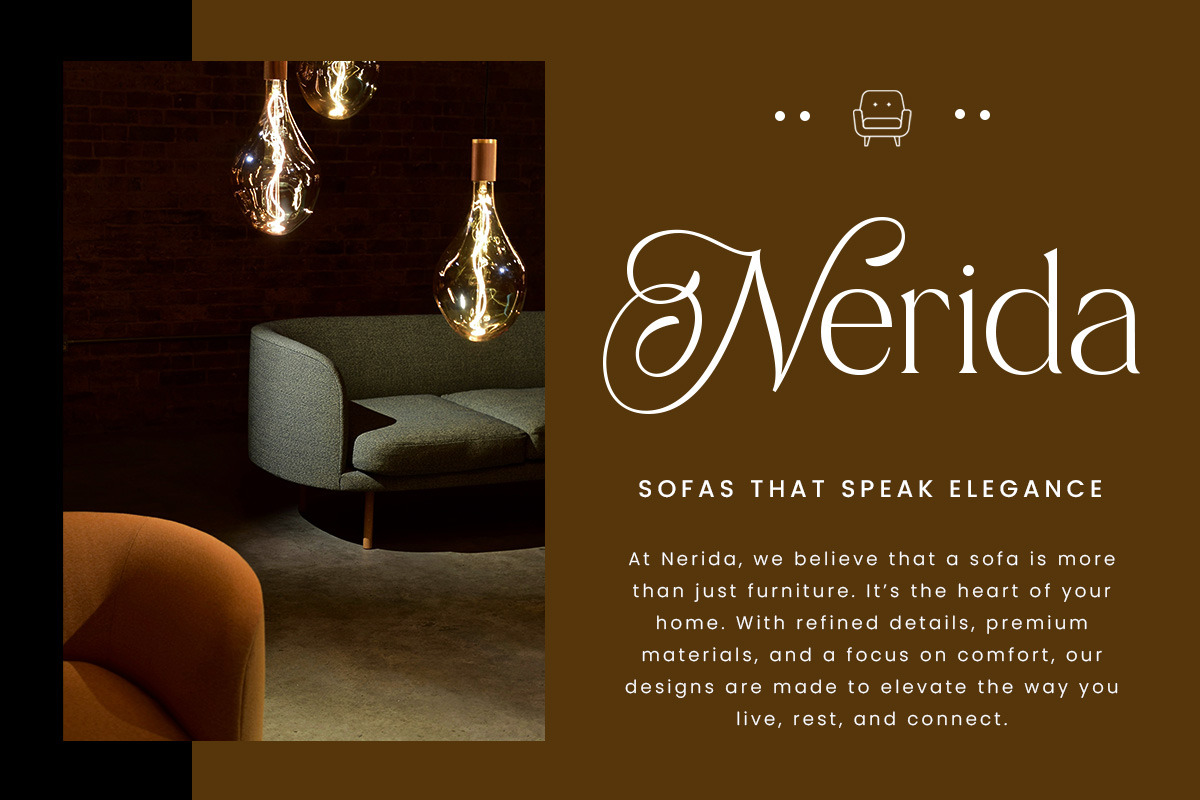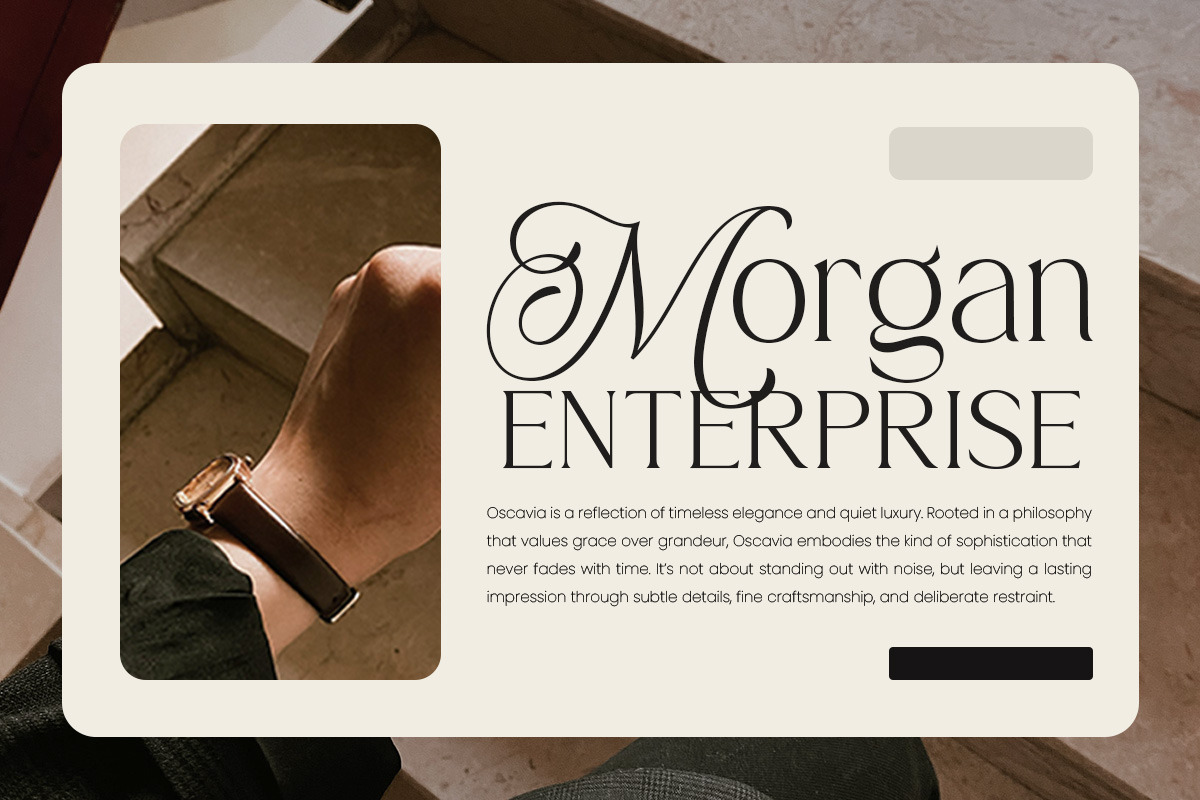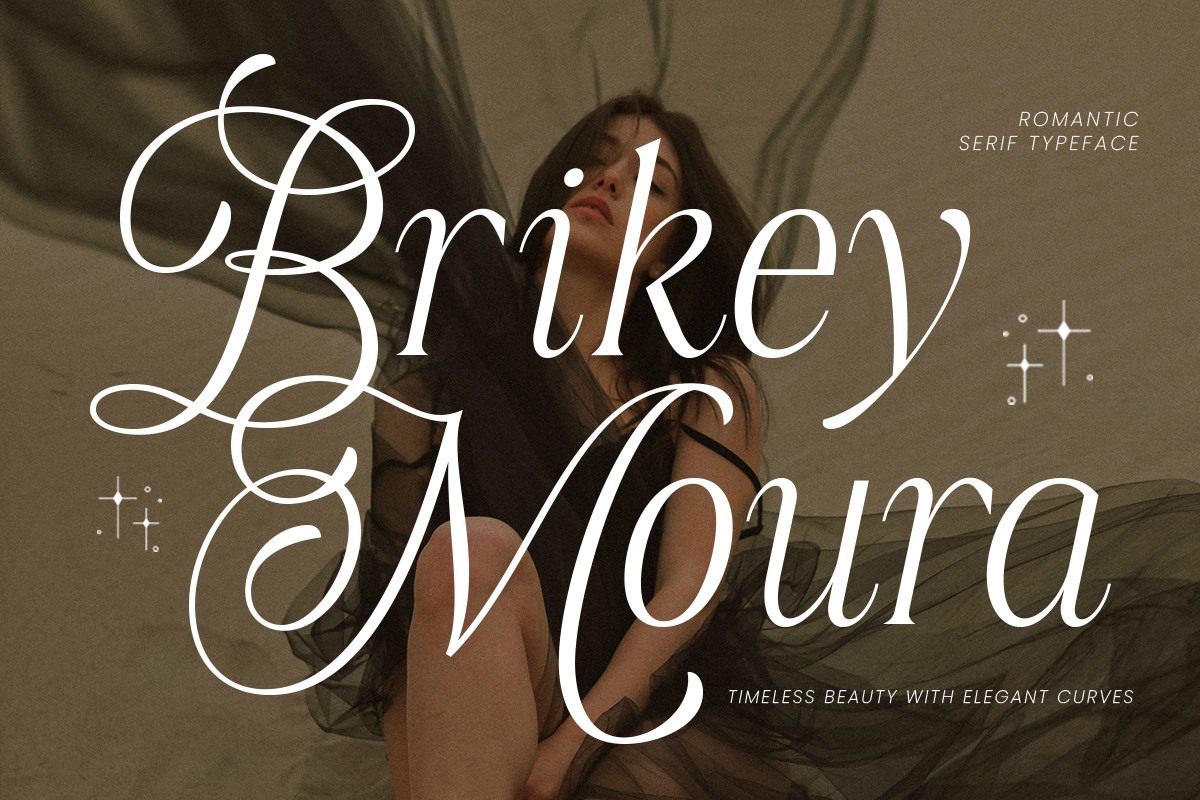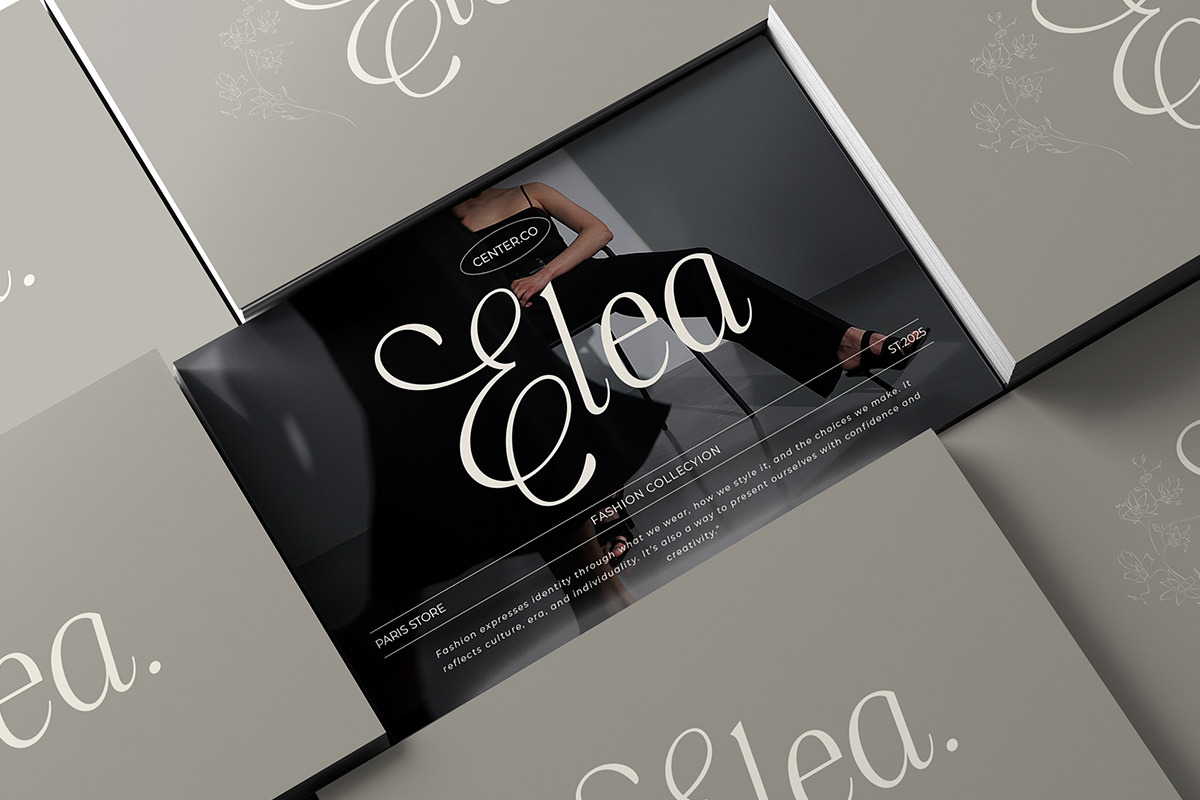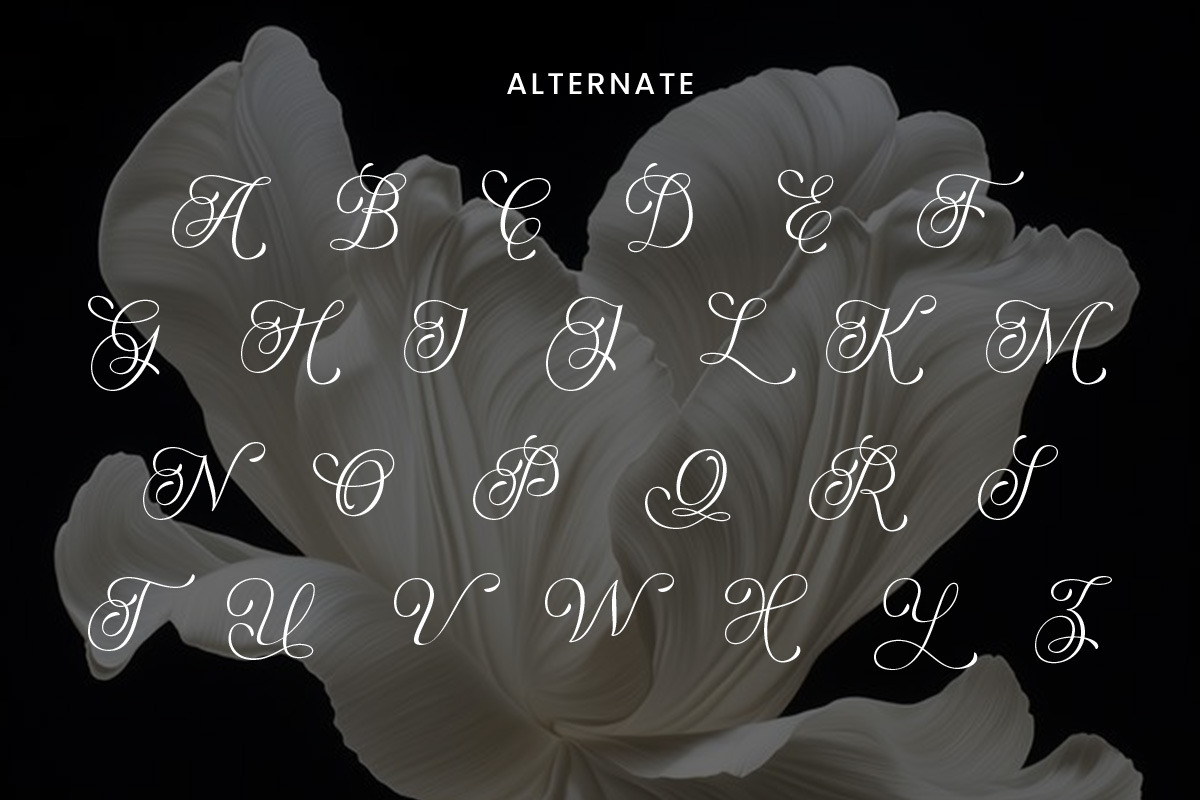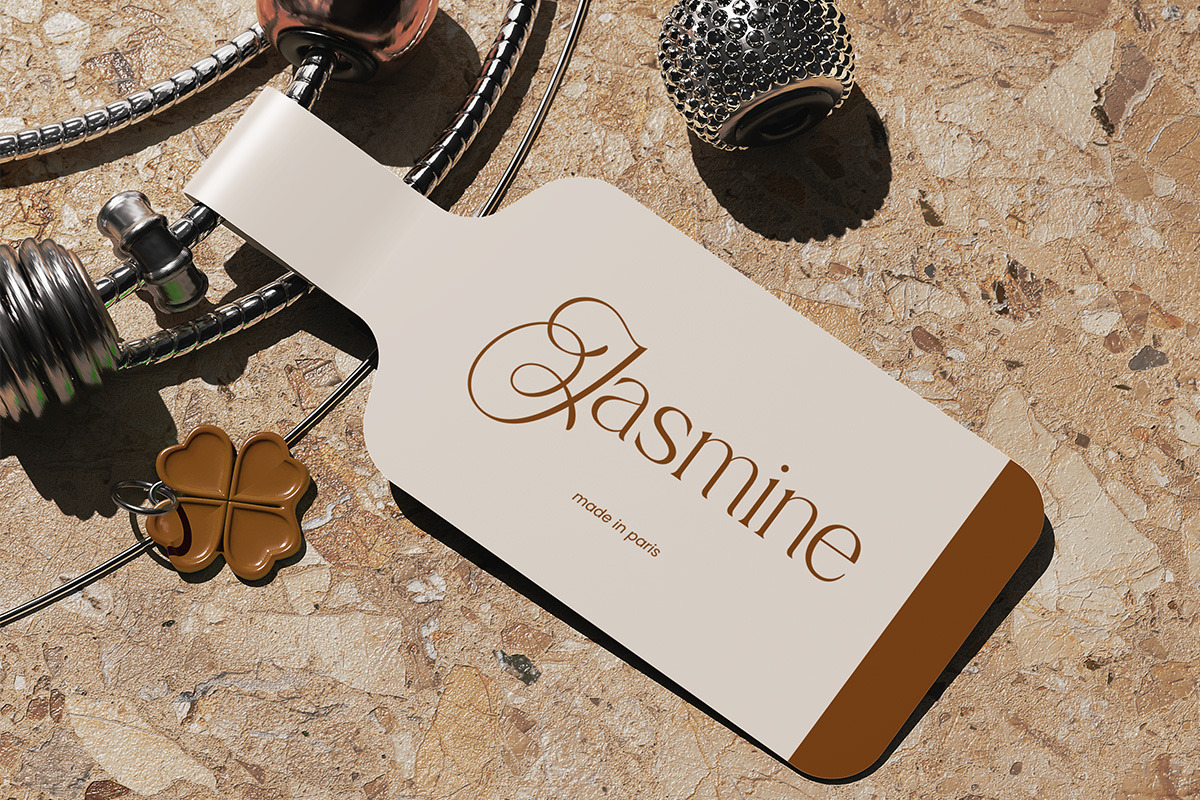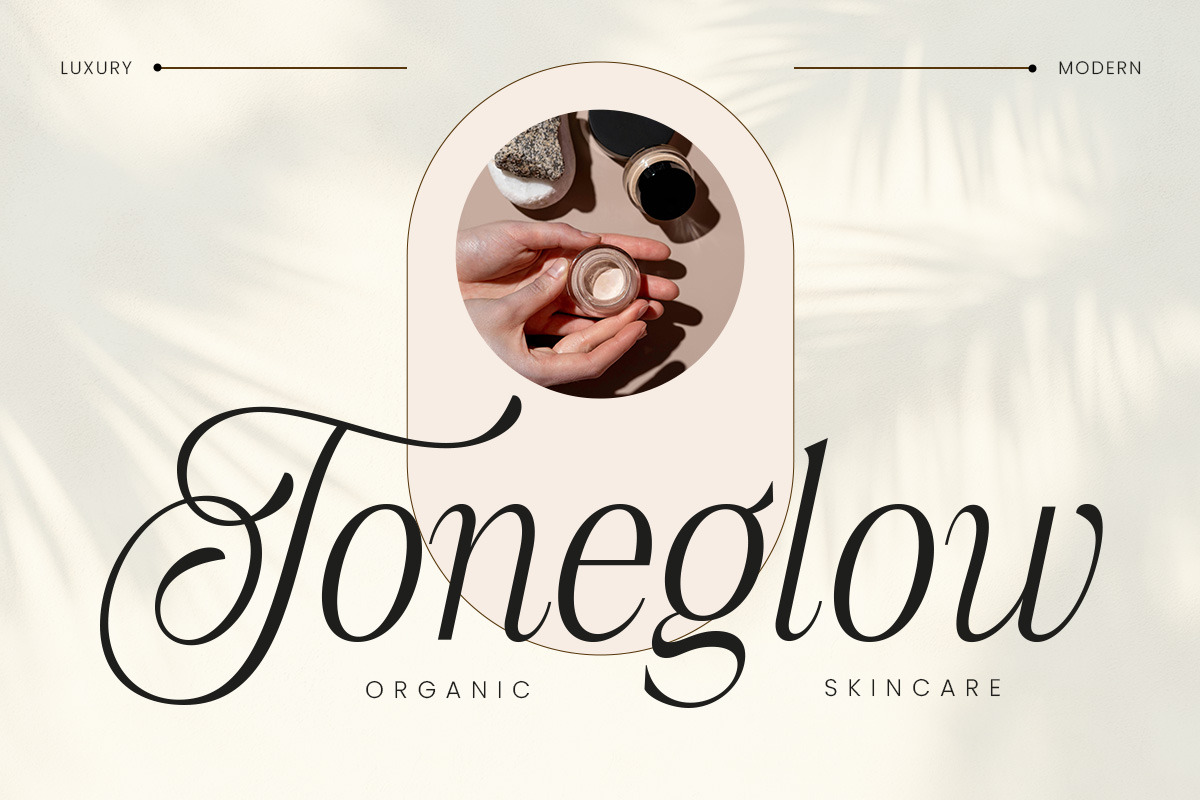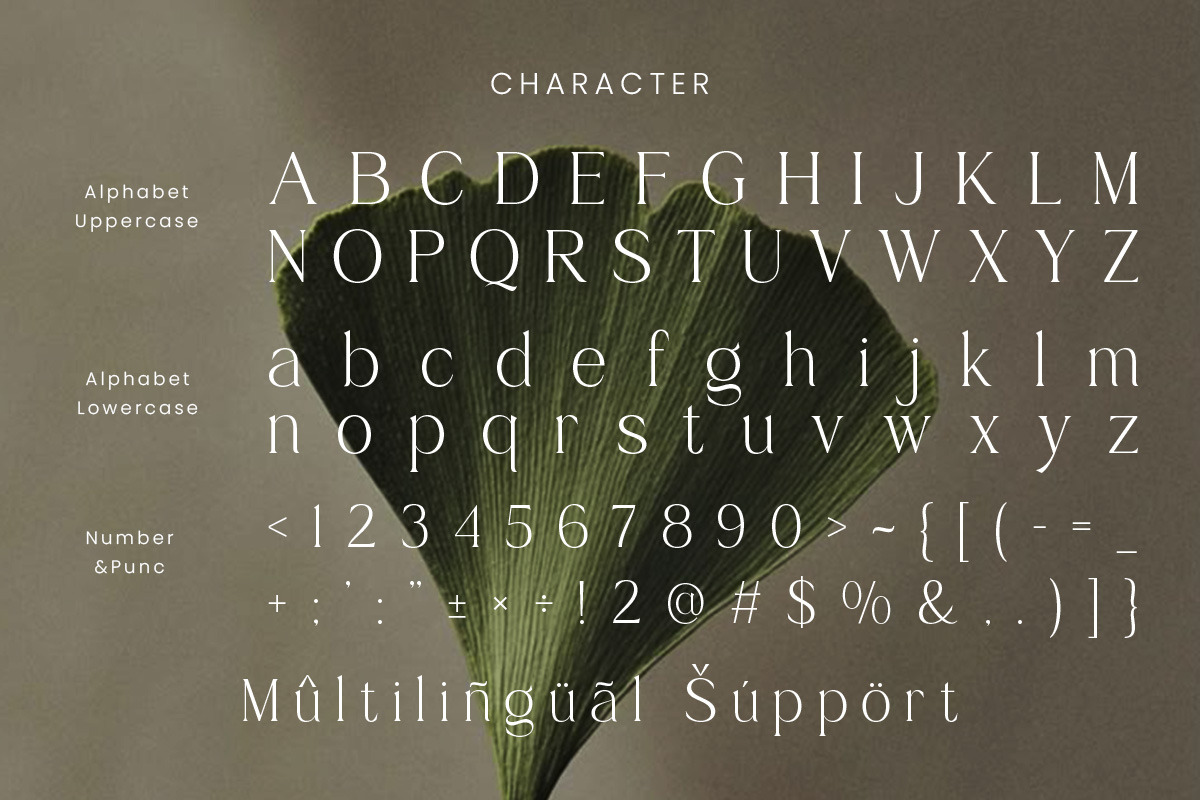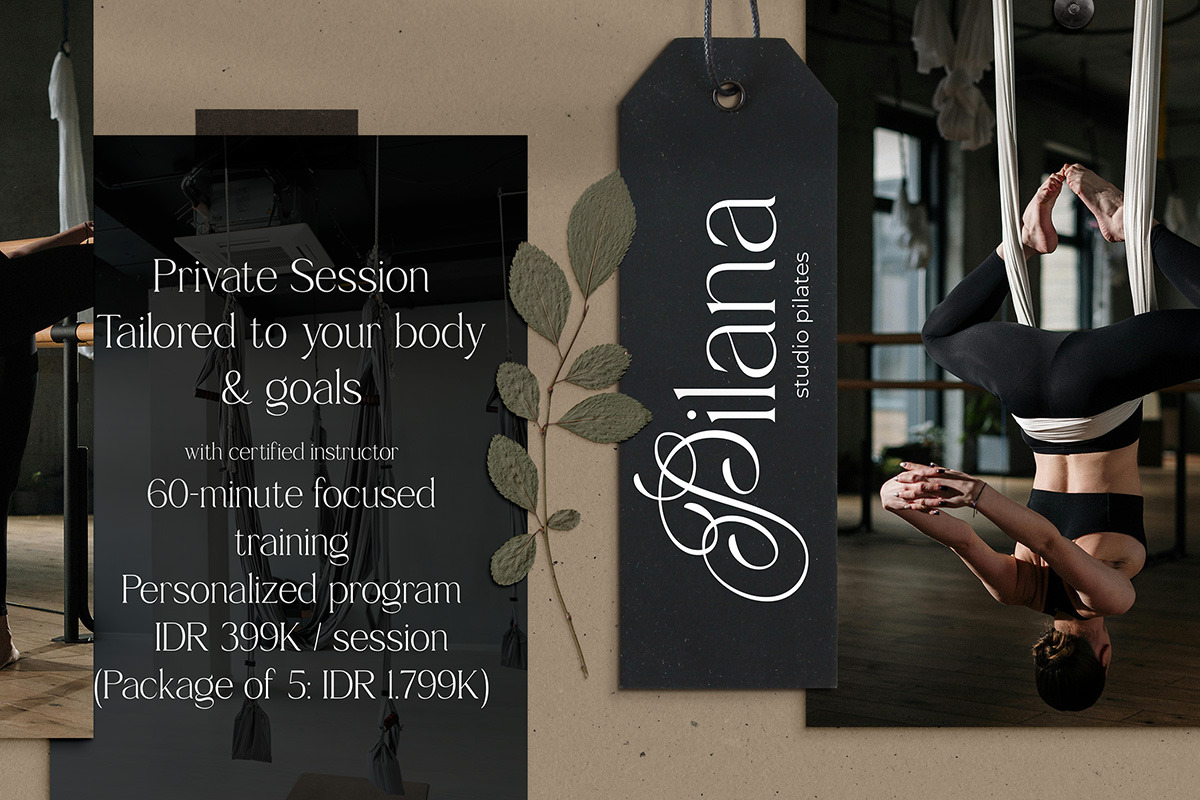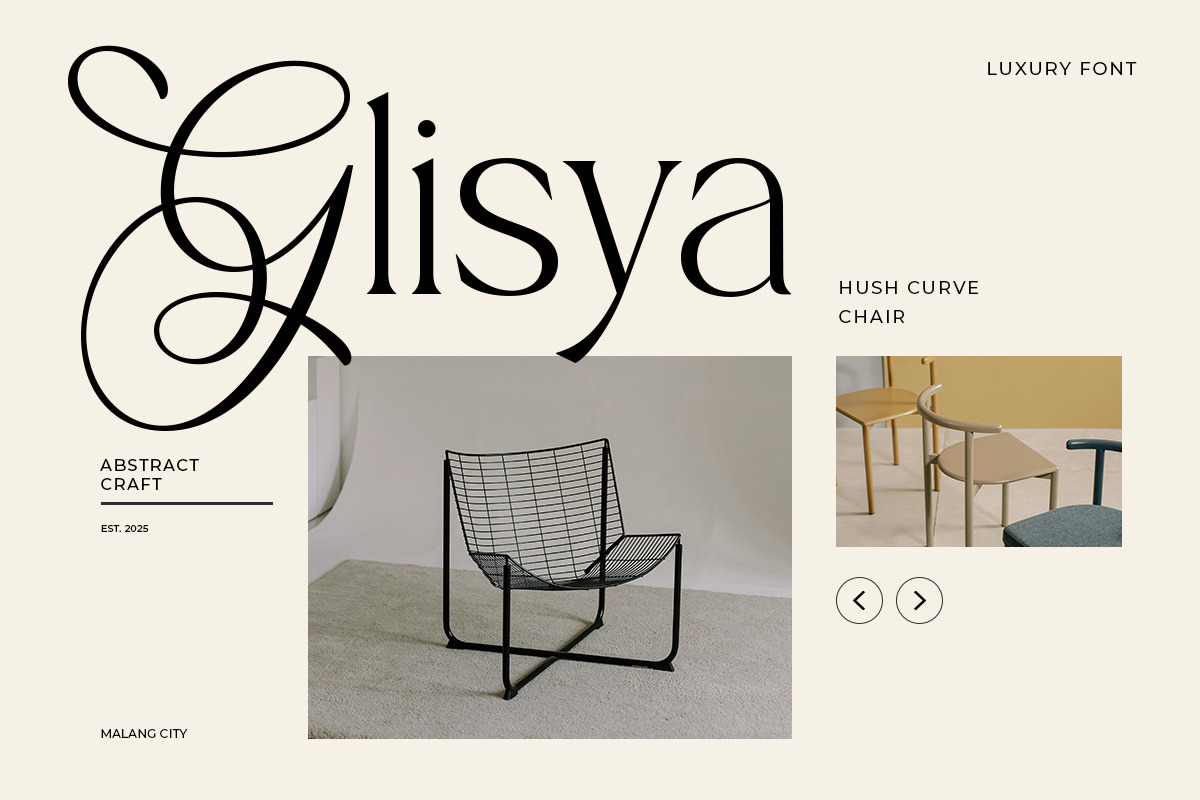
BrikeyMoura–Timeless Aesthetic Serif
Brikey Moura is a modern luxury serif font designed to bring timeless elegance into every project. With its romantic personality and bold presence, this typeface blends classic beauty with a contemporary twist. Perfectly balanced and graceful, Brikey Moura is crafted for designers who value sophistication and style.
Every letter in Brikey Moura carries delicate curves and refined details, giving it both strength and softness. The font features smooth kerning, harmonious proportions, and versatile letterforms that make it easy to adapt across different layouts. Whether used in large headlines or subtle subtext, it ensures a polished and luxurious look.
From logos, branding, packaging, invitations, social media graphics, magazines, to editorial layouts and wedding stationery, Brikey Moura is the ideal choice. If you’re searching for a typeface that communicates confidence, romance, and class, Brikey Moura is more than just a font it’s a statement piece for your design toolkit.